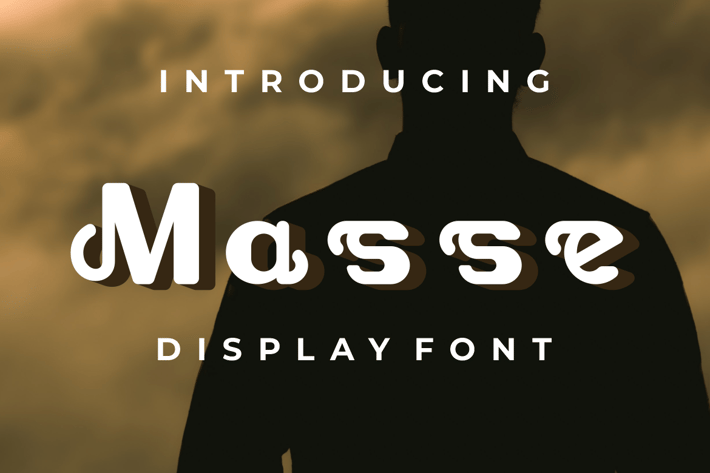
Masse Font
Introducing our new product Masse Font - Modern Font
Masse Font - Modern Font is a bold and authentic display font. The font is suitable for any branding project like logo, t-shirt printing, esport, and many more. outstanding in a wide range of contexts.